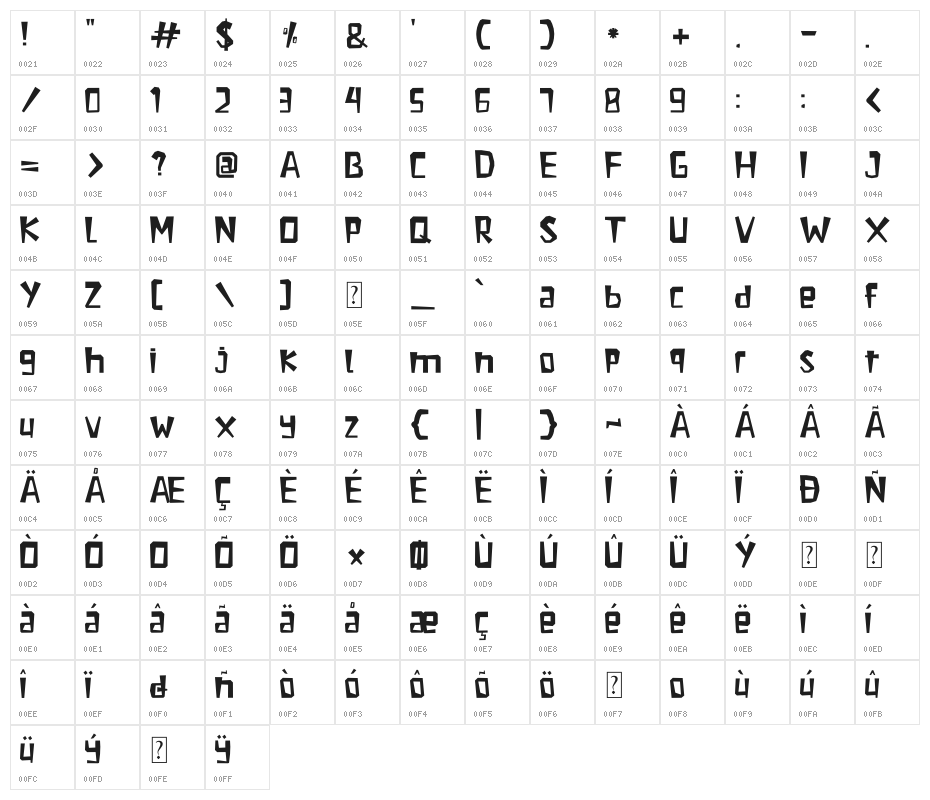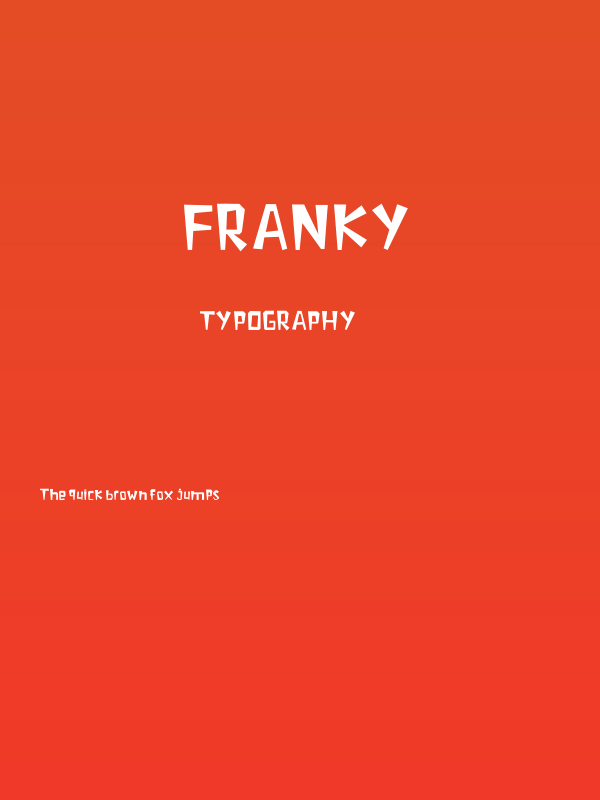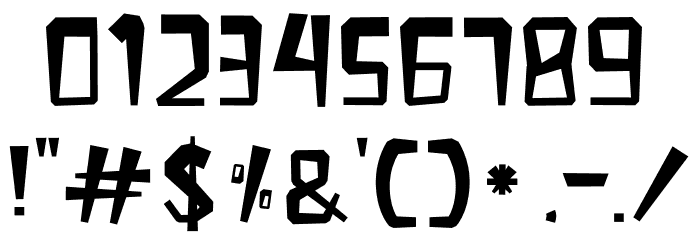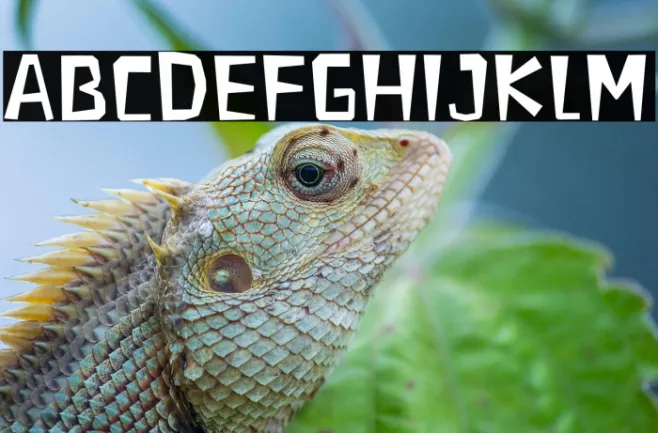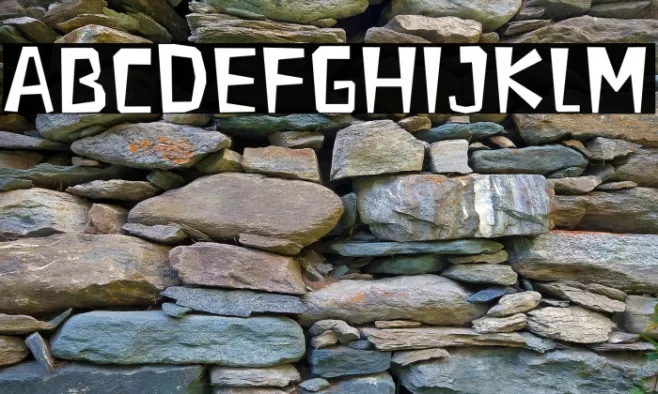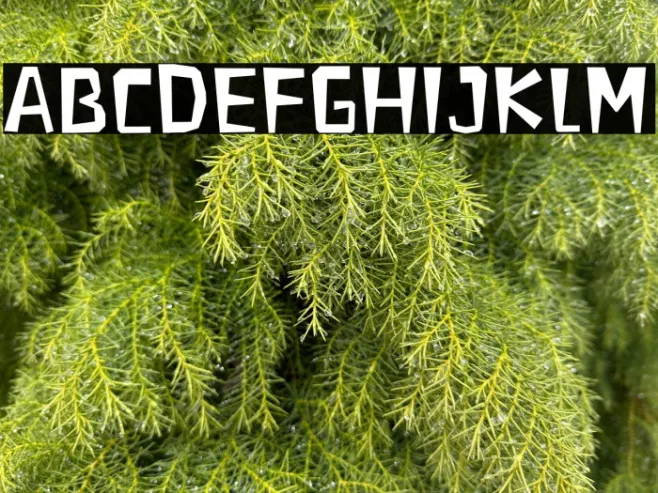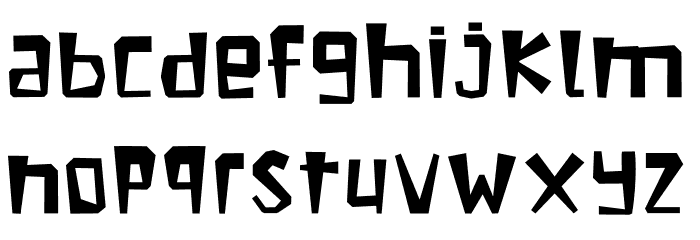
FRANKY Font
FRANKY Description
This font features a bold, angular design with a distinctly geometric appearance. The characters are crafted with sharp, irregular edges, giving them a hand-cut, almost stencil-like quality. The uppercase and lowercase letters maintain a consistent style, with a slightly condensed form that enhances their boldness. Numbers and special characters follow the same design principles, ensuring a cohesive look across all glyphs. The font's unique style makes it stand out, offering a modern yet edgy aesthetic that can add a dynamic touch to any project.
| Proposed Projects | Ideal for posters, album covers, branding, and any design requiring a modern, edgy look. |